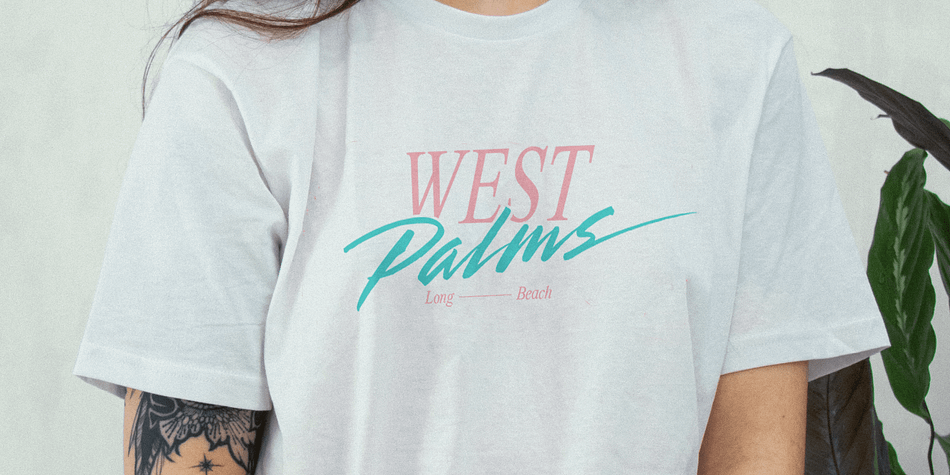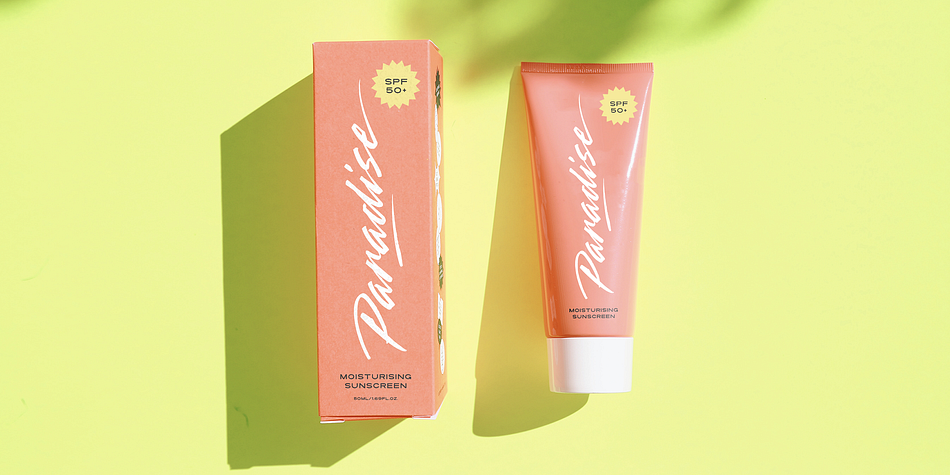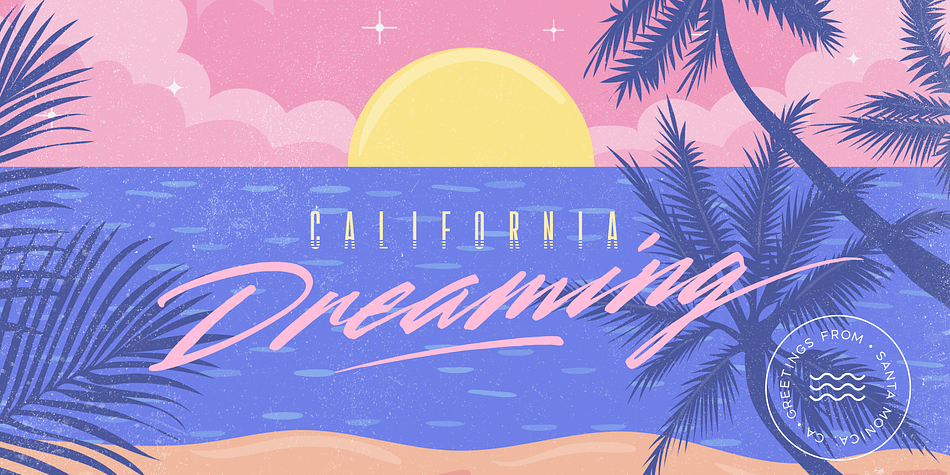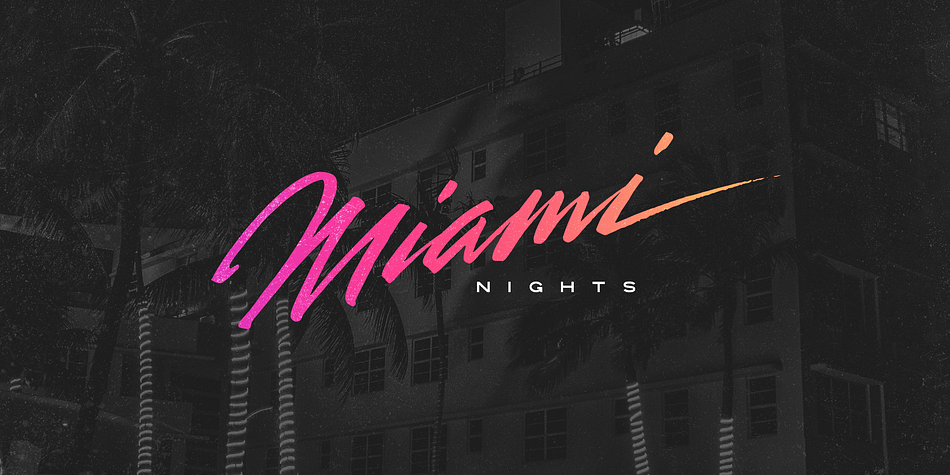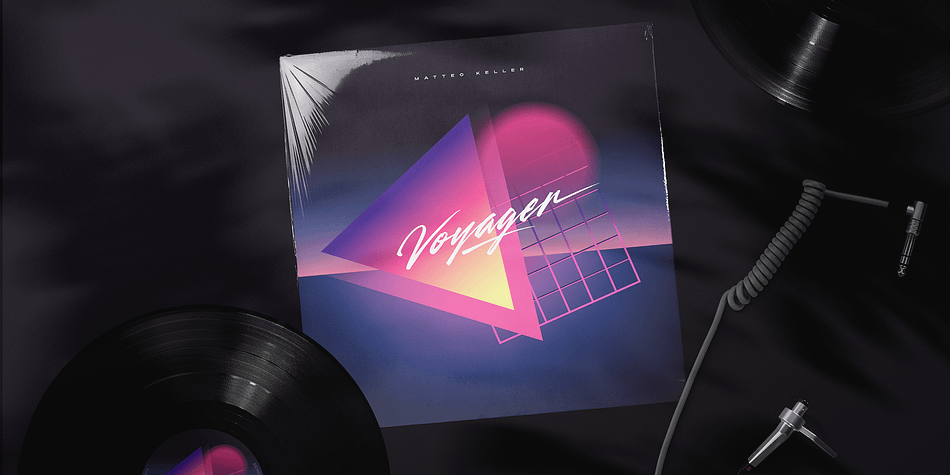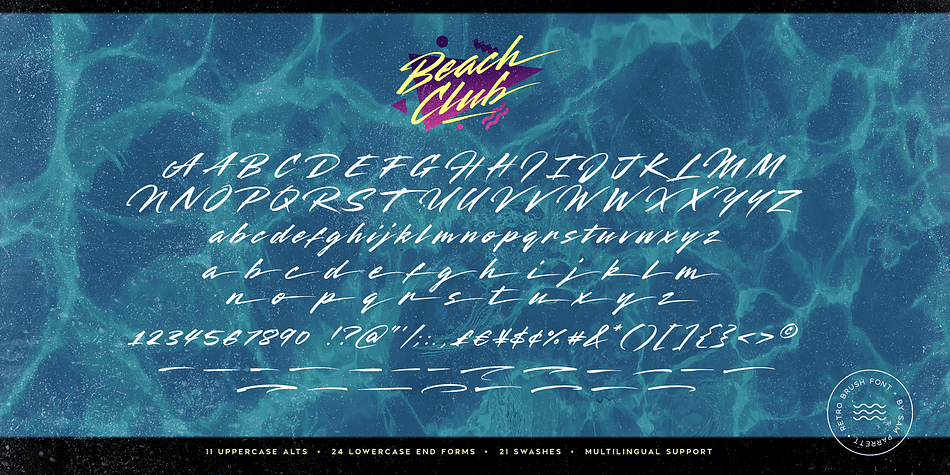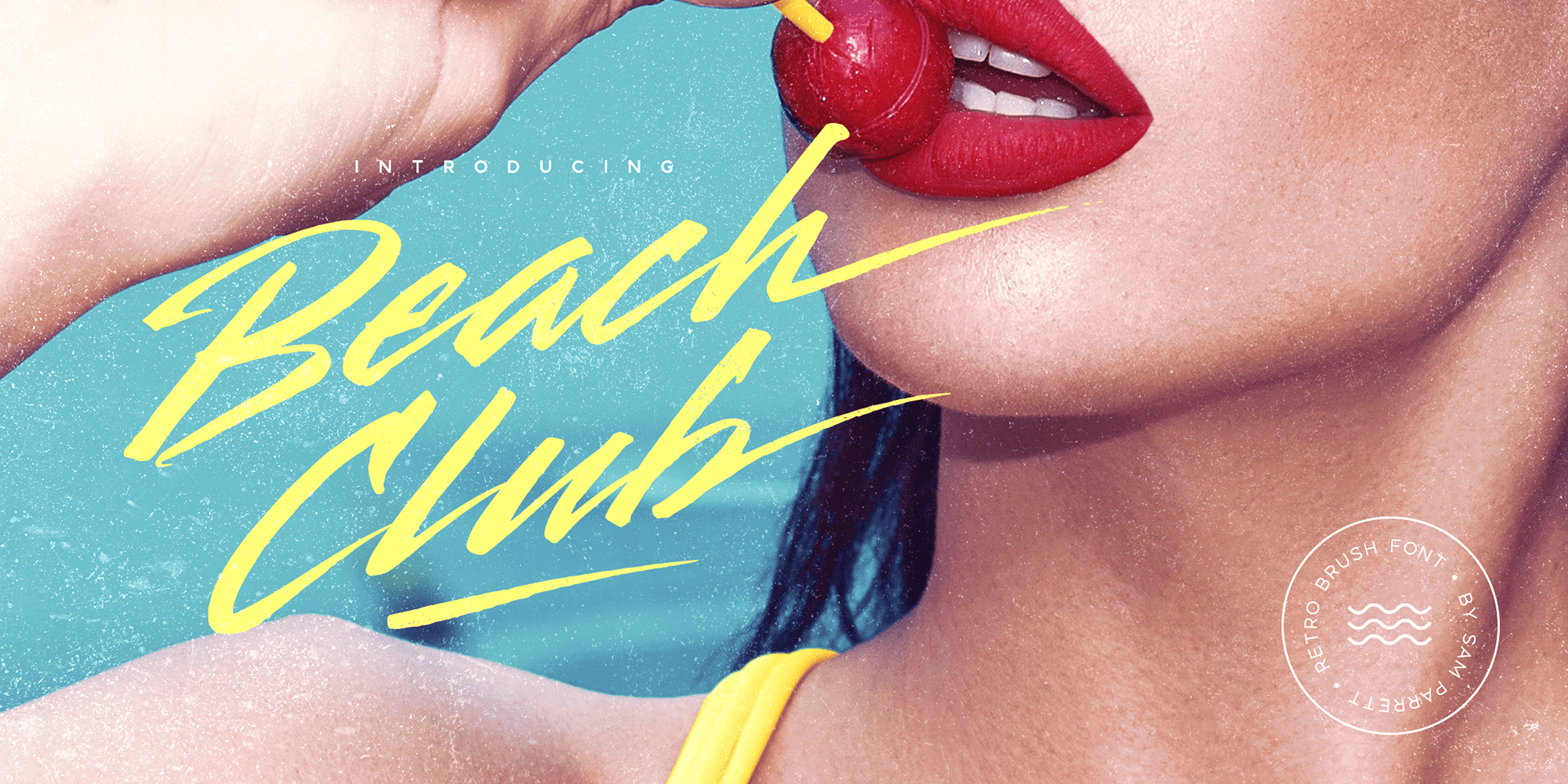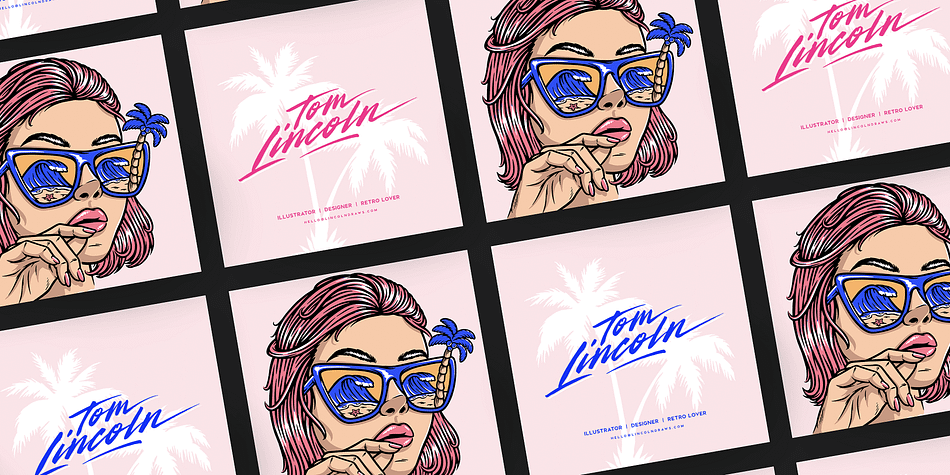
Beach Club
Designed by Sam Parrett, Beach Club is a brush script, hand drawn and dingbat font family. This typeface has two styles and was published by Set Sail Studios.
Leisure awaits you at the Beach Club ????. The weather is warm, the drinks are cold, and the font choices are excellent. This high energy, retro-fuelled script font is ideal for signature style logos, product packaging, display text and 80s/90s inspired graphics.
Beach Club includes 2 font files with added features;
1. Beach Club Script • A handwritten script font containing upper & lowercase characters, numerals and a large range of punctuation.
2. Beach Club Swash • Type any a-z character in this font to generate one of 21 swashes. These fast strokes are great for underlining your Beach Club Script text and adding some extra finesse to your lettering.
Alts & End Characters • End characters are available for 24 lowercase letters when using the Beach Club Script font. Use these characters at the end of your word to add a stylistic ‘end-swash’. Alternate characters are also available for 11 uppercase letters. These are accessible via software with opentype capability, by turning on ‘Stylistic Alternates’, or via a Glyphs panel.